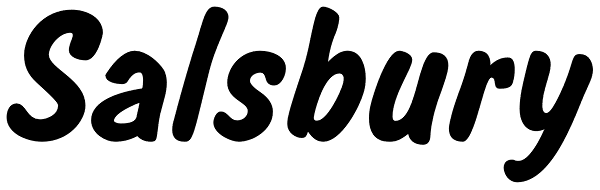
Salsbury
Salsbury is an abstraction/parody of Dom Casual and Flash, using the best elements of both. Rather than mimicking actual brush strokes, Salsbury resembles a hand-cut screen print, giving Salsbury an authentic carnival feel. Salsbury was designed for...